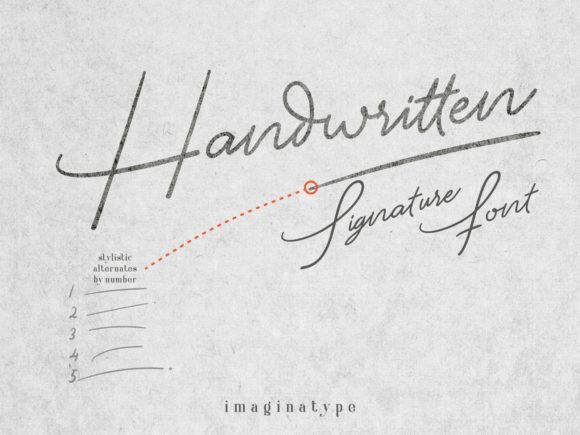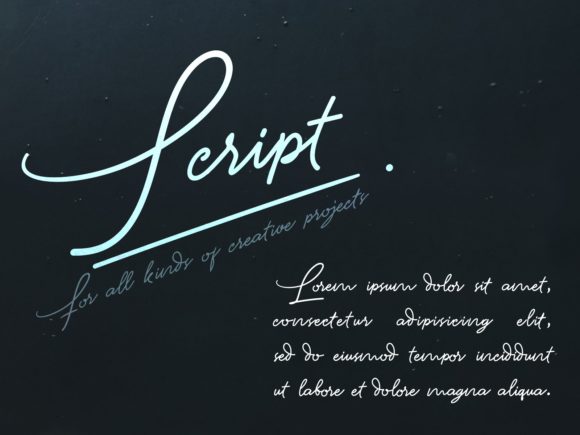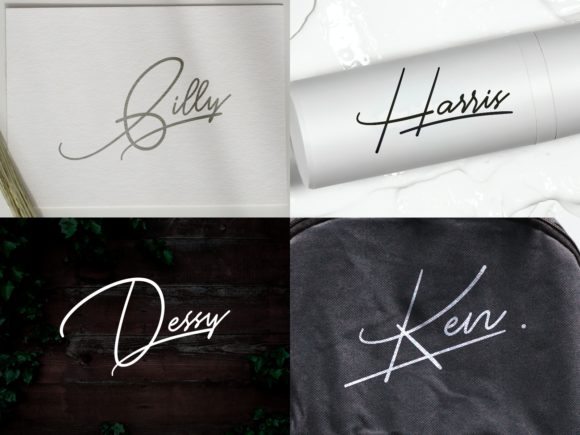
Introduction to Louis Robert Font
As designers, we’ve all been there – staring at a blank canvas, struggling to find the perfect font to bring our creative project to life. For me, it was a late-night brainstorming session, desperately searching for the perfect script font to add a touch of elegance to a client’s logo. And then, it happened – I stumbled upon the Louis Robert Font, and everything fell into place. This beautiful script font is more than just a design resource; it’s a game-changer for any creative project.
The Louis Robert Font is a high-quality, elegant script font that’s perfect for creating logos, signatures, cover titles, and more. With its well-balanced characters and transparent background, it seamlessly integrates with any design, making it a valuable addition to any designer’s toolkit. And the best part? It’s PUA encoded, allowing you to access all of its glyphs and swashes with ease, making it a breeze to customize and style.
Key Features of Louis Robert Font
- High-quality typography: This font features a unique, elegant design with precise details, suitable for various applications.
- Perfect for creative projects: This font is ideal for creative projects that require a touch of elegance and sophistication, such as branding, packaging, and editorial design.
Honest Review: Louis Robert Font
I recently stumbled upon the Louis Robert Font, and I must say it’s been a game-changer for my creative projects. This font is perfect for designers looking for a unique and high-quality design resource.
- What works well:
- ✨ The Louis Robert Font has a clean and elegant design, making it suitable for a wide range of creative projects.
- ⚠️ The font may not be suitable for all types of creative projects, especially those requiring a more bold or dramatic look.
- ⚠️ Some users may find the font’s simplicity a bit too minimalistic.
Overall, I’m really impressed with the Louis Robert Font. Its high quality, free download, and transparent background make it an excellent addition to any designer’s toolkit. If you’re looking for a reliable and stylish font for your creative project, I highly recommend giving the Louis Robert Font a try.
To get the most out of the Louis Robert Font, try using it with a transparent background to create a subtle, elegant look. You can also use it in combination with other design elements, such as graphics and images, to create a visually appealing design.
The Louis Robert Font is ideal for a variety of creative